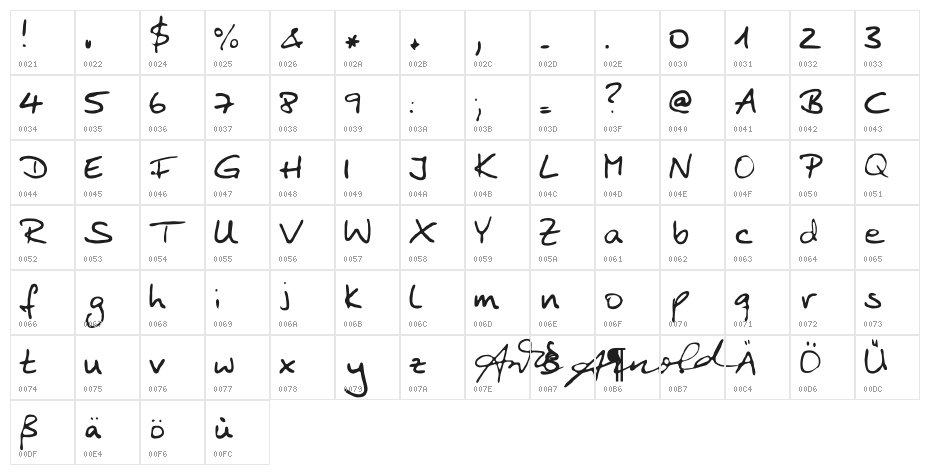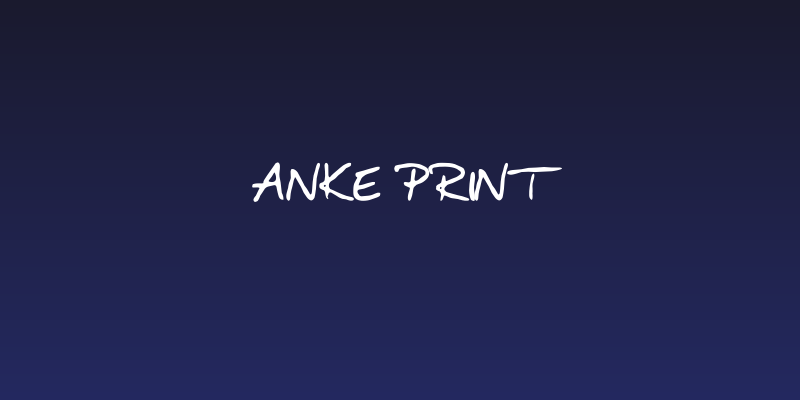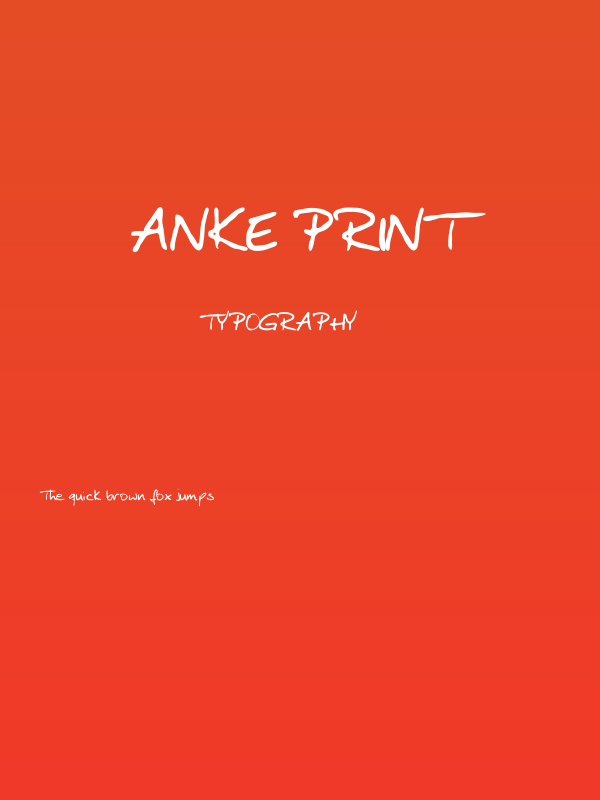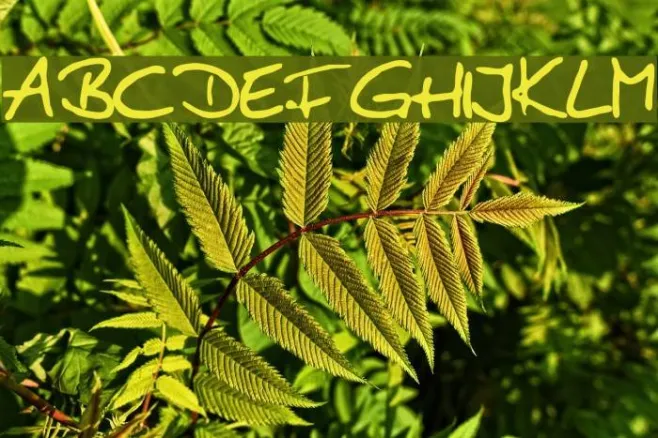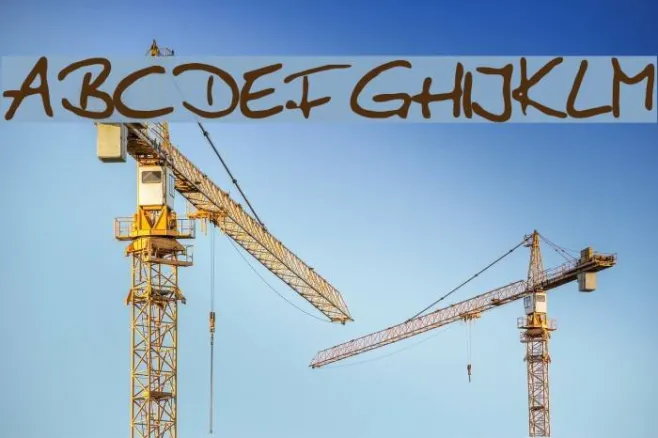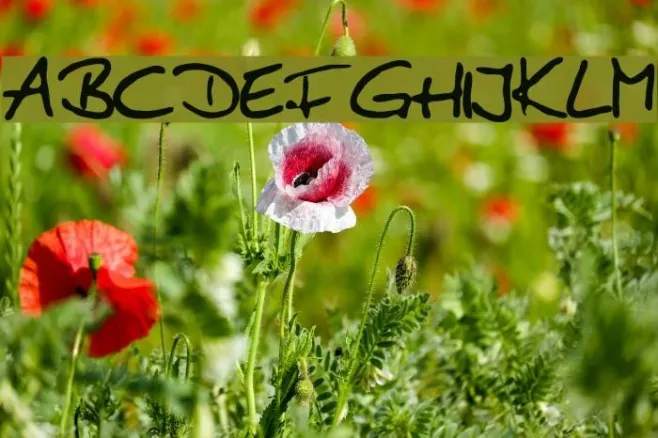
Anke Print Font
Anke Print Description
This font features a bold, handwritten style with a playful and dynamic appearance. The letters are slightly slanted, giving it an informal and casual feel. The strokes are thick and consistent, with a smooth flow that mimics natural handwriting. The uppercase and lowercase letters maintain a cohesive look, while the numbers and special characters complement the overall style. The font's organic and lively nature makes it suitable for projects that require a personal touch or a creative flair.
| Proposed Projects | Ideal for greeting cards, invitations, personal branding, and creative posters. |